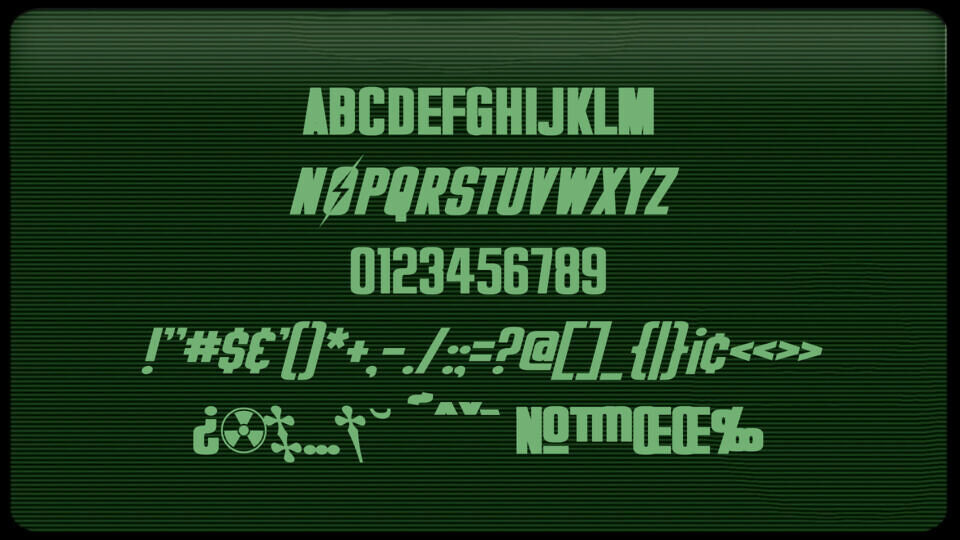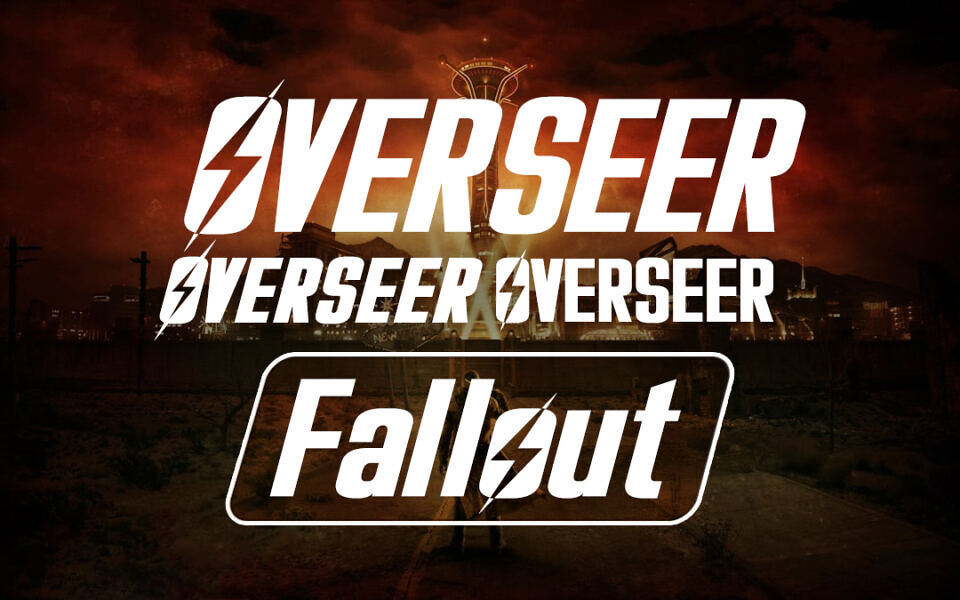
Overseer Font
Overseer is a bold, techno-inspired typeface designed by Neale Davidson, featuring strong geometric shapes and a modern, condensed look. Inspired by the iconic title logo of the Fallout franchise, it includes distinctive details like a lightning-styled “O” that adds energy and character.
With multiple styles (regular, bold, italic) and a full set of glyphs, Overseer is ideal for logos, gaming titles, posters, and any design that needs a powerful, futuristic visual impact.